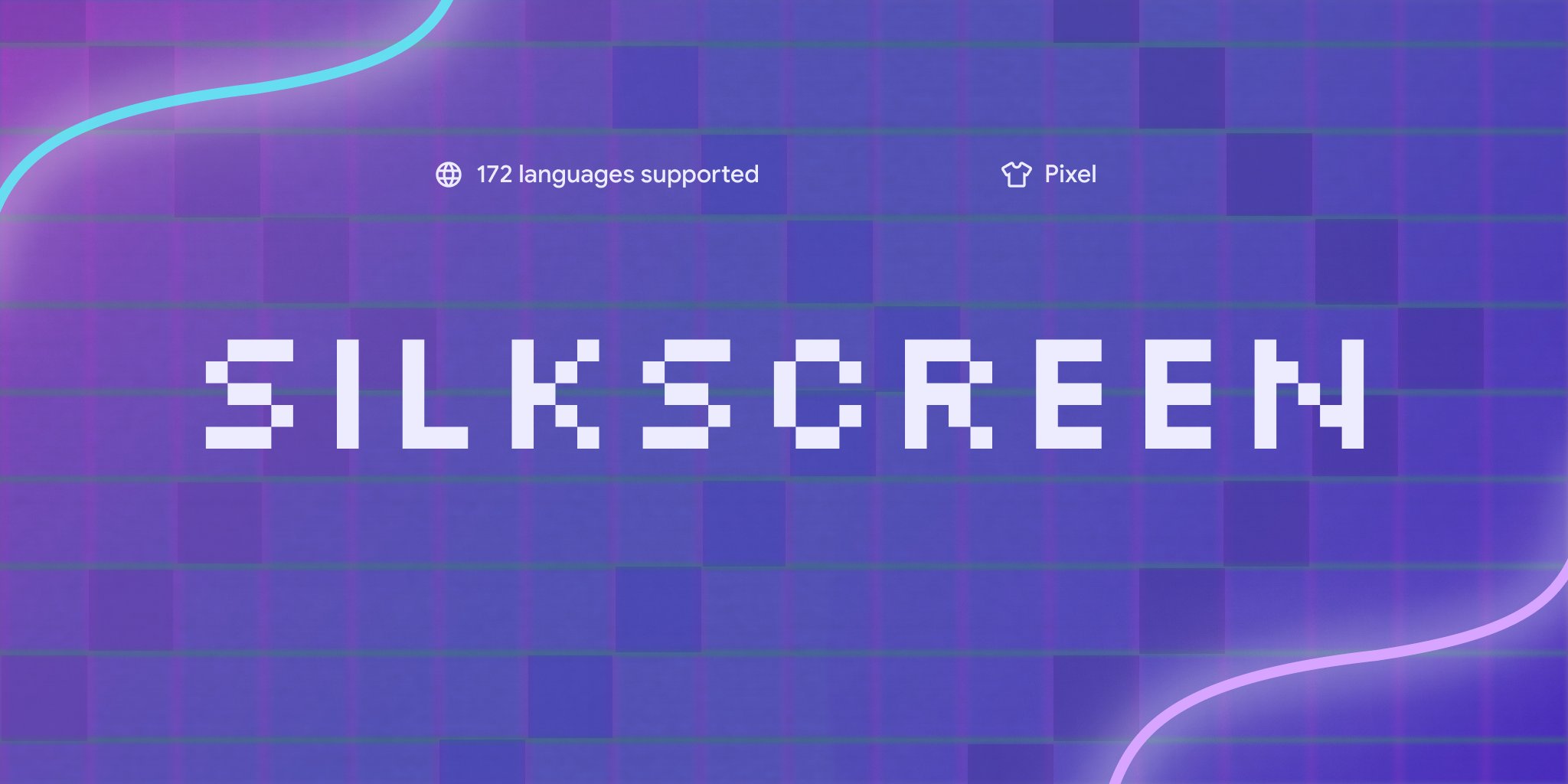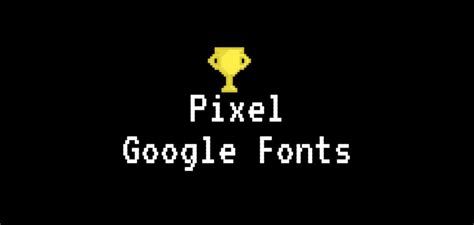
Pixelated Google Fonts. Silkscreen is a pixel typeface that was designed for rendering type at small sizes for web. Dotgothic 16 is based on the old 16x16 gothic bitmap font that recreates the feel of pixel fonts from.
Pixelify sans fonts are a unique style of typography that originated in the 1980s with the rise of. Dotgothic 16 is based on the old 16x16 gothic bitmap font that recreates the feel of pixel fonts from. Silkscreen is a pixel typeface that was designed for rendering type at small sizes for web. This font was created from the glyphs of the dec vt320 text terminal, which i used in college, and for.
Dotgothic 16 is based on the old 16x16 gothic bitmap font that recreates the feel of pixel fonts from. Dotgothic 16 is based on the old 16x16 gothic bitmap font that recreates the feel of pixel fonts from. Pixelify sans fonts are a unique style of typography that originated in the 1980s with the rise of. This font was created from the glyphs of the dec vt320 text terminal, which i used in college, and for. Silkscreen is a pixel typeface that was designed for rendering type at small sizes for web.